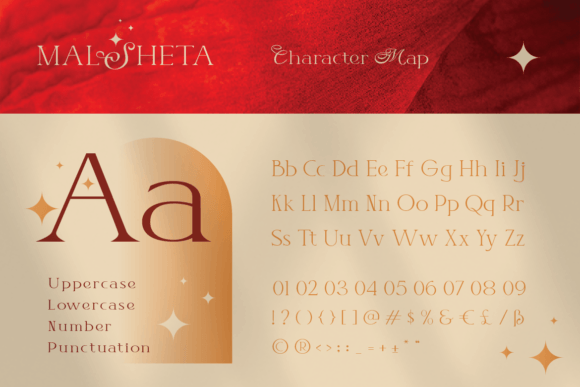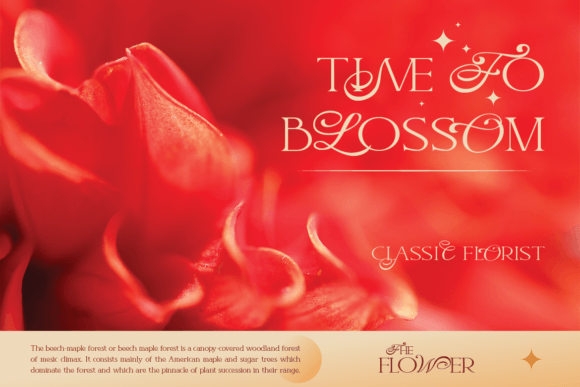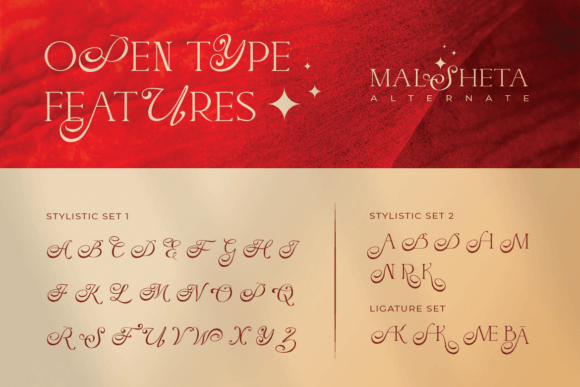
Introduction to Malsheta Font
Malsheta is designed by combining an elegant script font with a simple and charming serif font style that makes this font look different and unique.
This font is good for logo design, social media, movie titles, book titles, and others It is also great when combined with a sans-serif or script.
Key Features of Malsheta Font